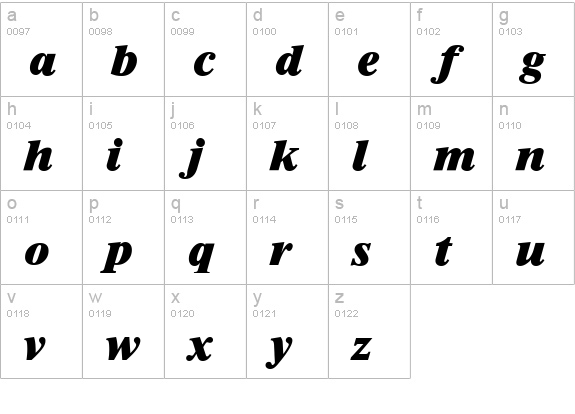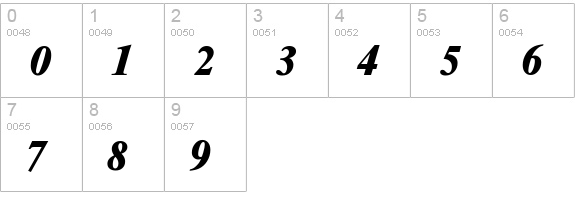
RiccioneSerial-Heavy-Italic Font Details
RiccioneSerial-Heavy-Italic is a heavy, high-impact, italic variant in the RiccioneSerial typeface family \xE2\x80\x94 well suited to high-impact headlines, posters, and display advertising.
RiccioneSerial-Heavy-Italic font is a bold and stylish typeface that exudes a sense of modernity and elegance. Its thick strokes and slanted design give it a strong and impactful appearance, making it perfect for headlines, titles, and other attention-grabbing text. This font is freely available to download at FontsMarket.com, making it accessible to designers, creatives, and anyone looking to add a touch of sophistication to their projects. Whether you're working on a poster, logo, or website design, RiccioneSerial-Heavy-Italic font is sure to make a bold statement and captivate your audience. Elevate your typography game with this striking and versatile typeface today!